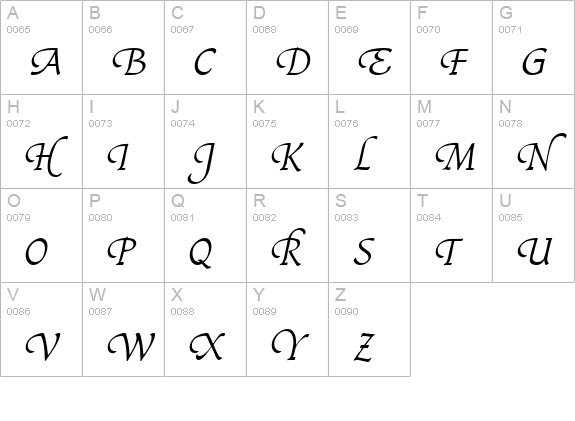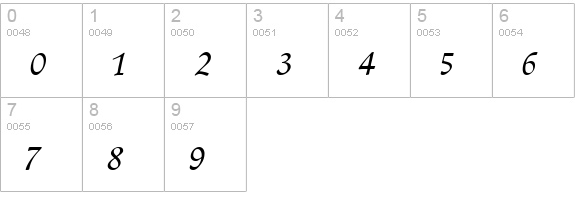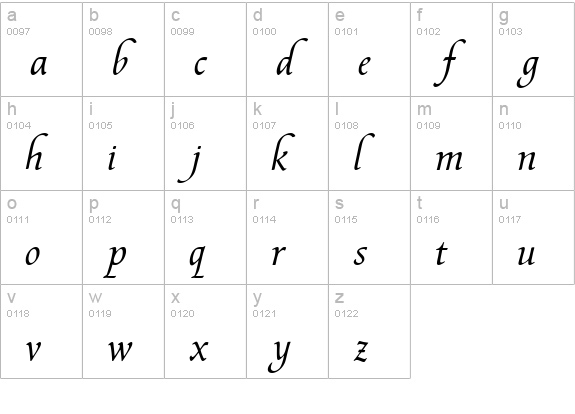
Fidelio MN Font Details
Fidelio MN is a sophisticated and elegant font that exudes a sense of modernity and style. With its sleek lines and timeless appeal, this font is perfect for a wide range of design projects, from branding to editorial design. Fidelio MN offers a harmonious balance between classic typography and contemporary aesthetics, making it a versatile choice for both print and digital applications. One of the best features of Fidelio MN is that it is completely free to download at FontsMarket.com. This means that you can easily access this high-quality font without any cost, making it a valuable addition to your font library. Whether you are a designer looking to enhance your projects or a creative looking for a fresh and unique typeface, Fidelio MN is sure to impress with its sophisticated charm and effortless versatility. Download Fidelio MN today at FontsMarket.com and elevate your designs with this stunning free font.